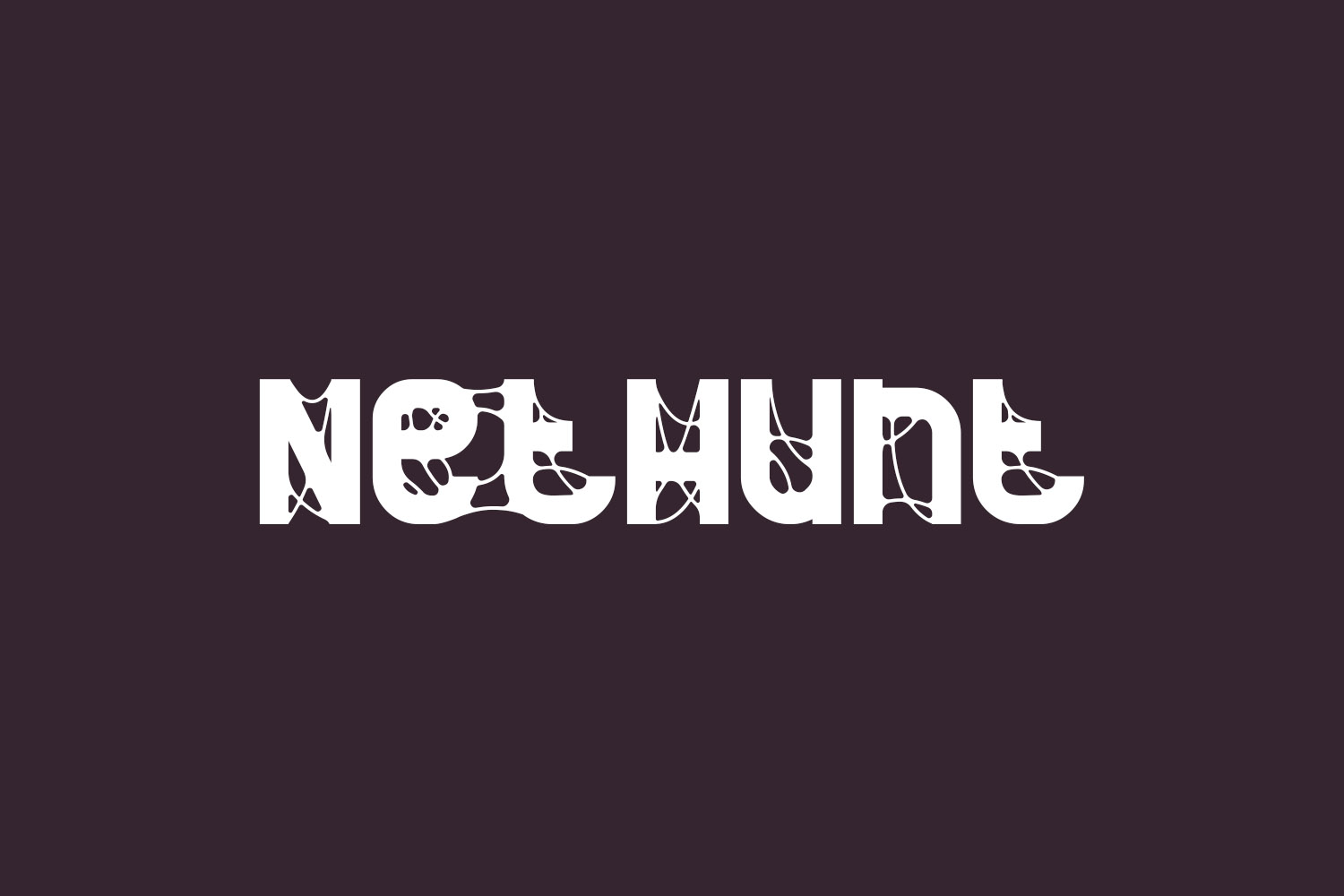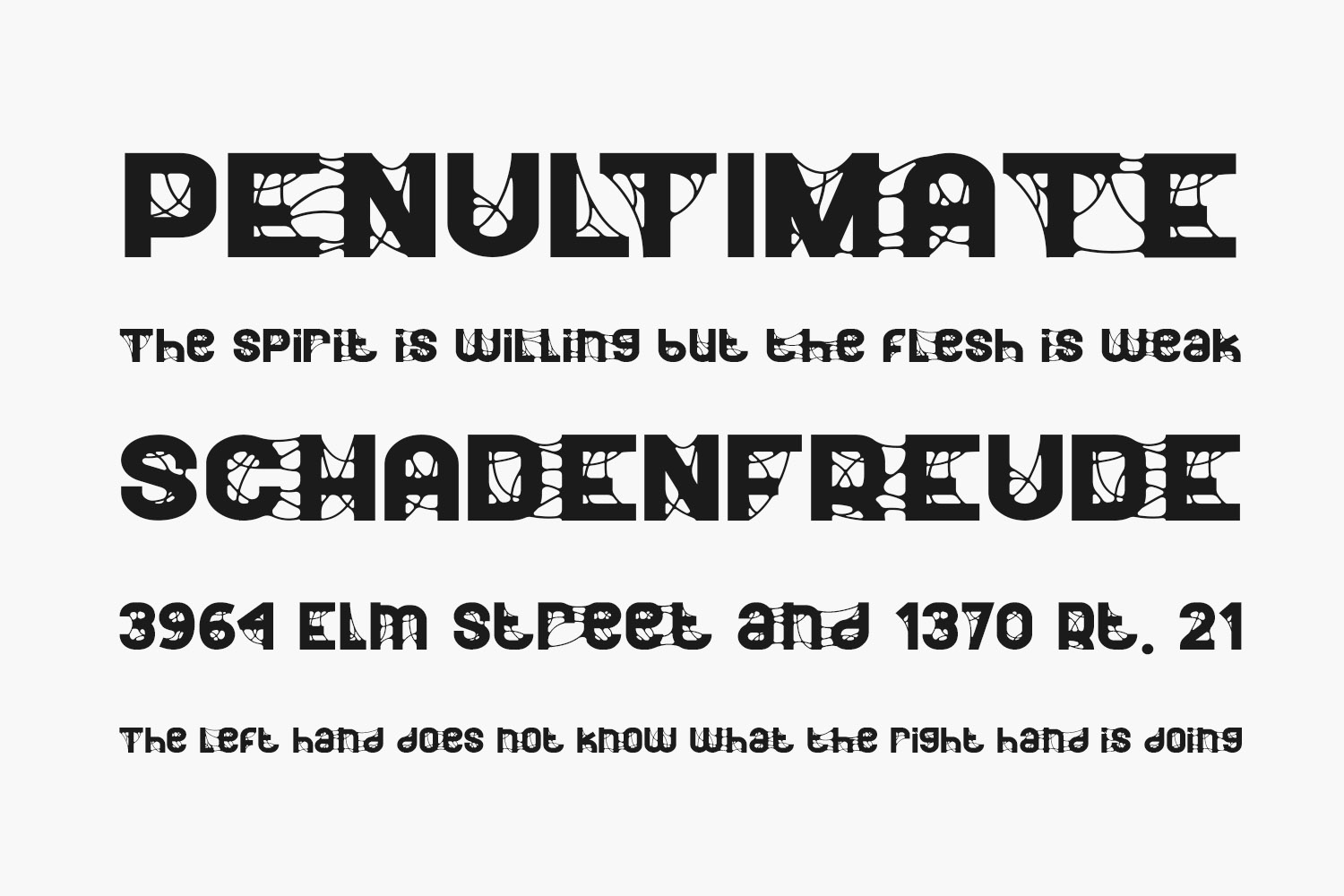
Meet NetHunt Free Font, an arachnid-inspired display sans font ideal for adding a spooky and eerie vibe to your designs. This font draws inspiration from an ancient embossed nameplate adorned with cobwebs, creatively transformed into a unique display font. NetHunt offers both uppercase and lowercase variants, with the lowercase version sans cobweb details. Additionally, the font boasts a sans ligature feature, enhancing the eerie charm of each word with intricate cobweb embellishments. NetHunt Free Font is free for personal use only. Please purchase the full version for commercial use.